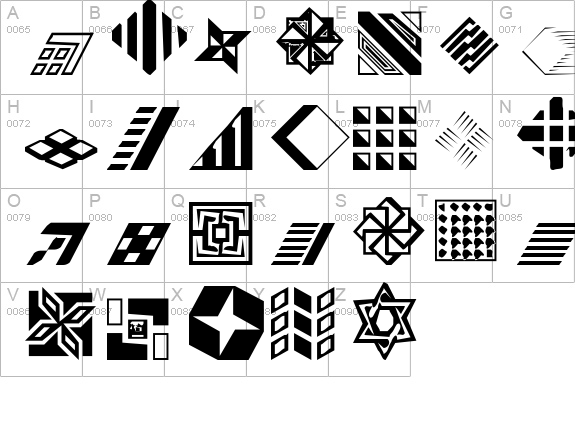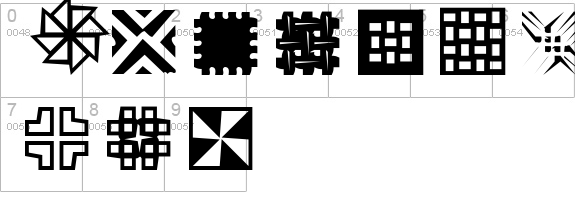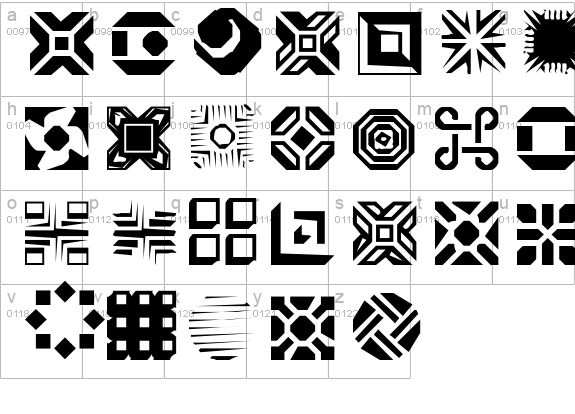
Carr Dings font is a charming and whimsical typeface that is perfect for adding a touch of playfulness to your designs. Featuring a collection of quirky and unique dingbat characters, this font is sure to make your projects stand out. Whether you're working on a poster, greeting card, or social media graphic, Carr Dings has got you covered. Best of all, Carr Dings font is completely free to download at FontsMarket.com. Simply head to the website and grab this delightful font to add a fun and creative flair to your projects. Don't miss out on this fantastic opportunity to enhance your designs with the playful charm of Carr Dings!